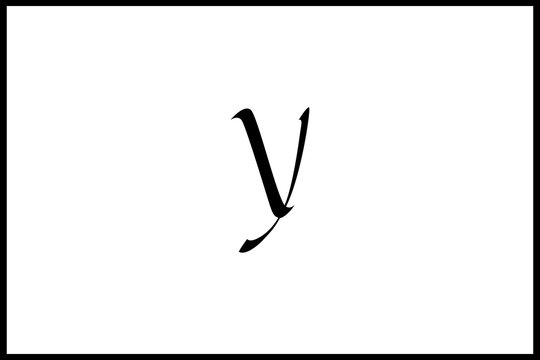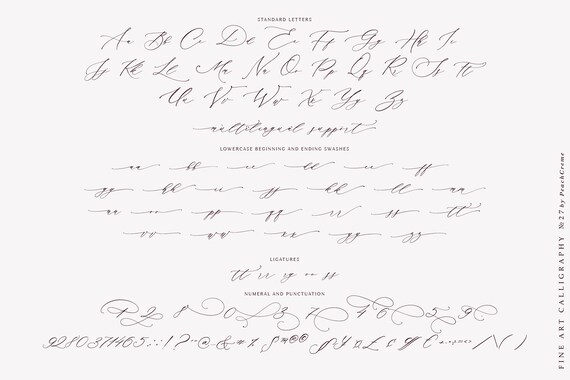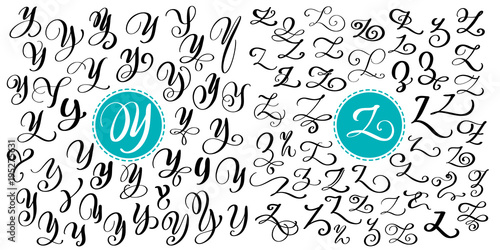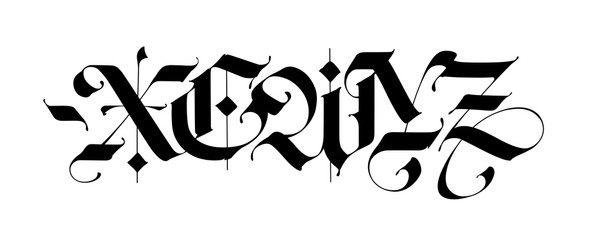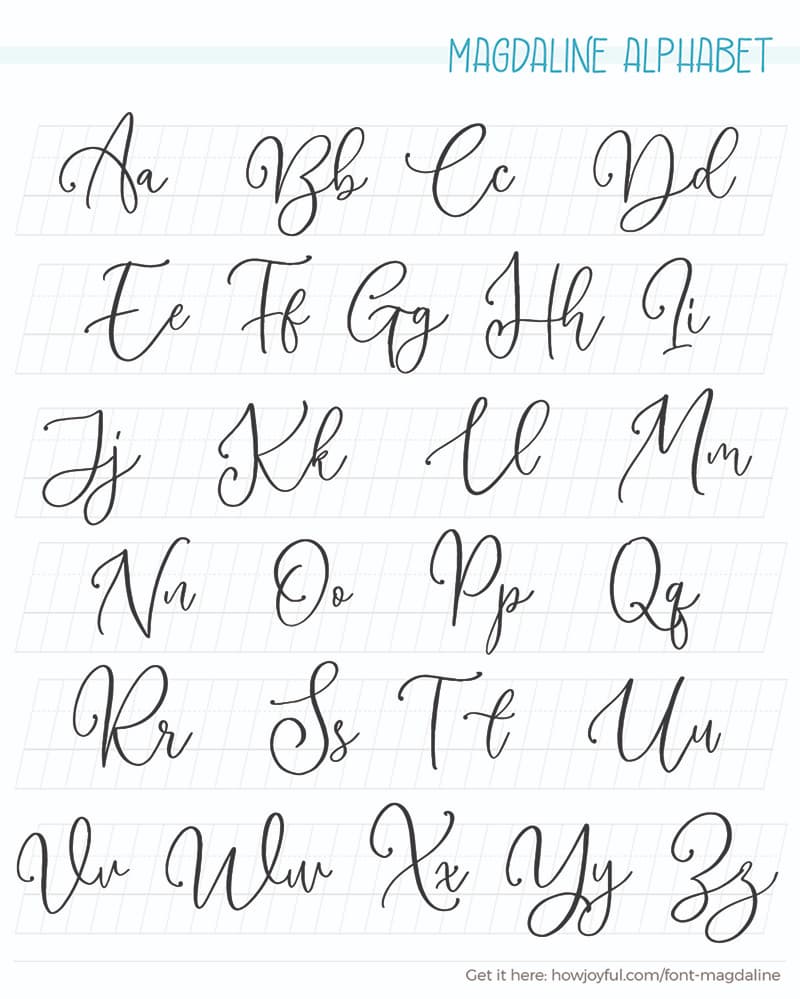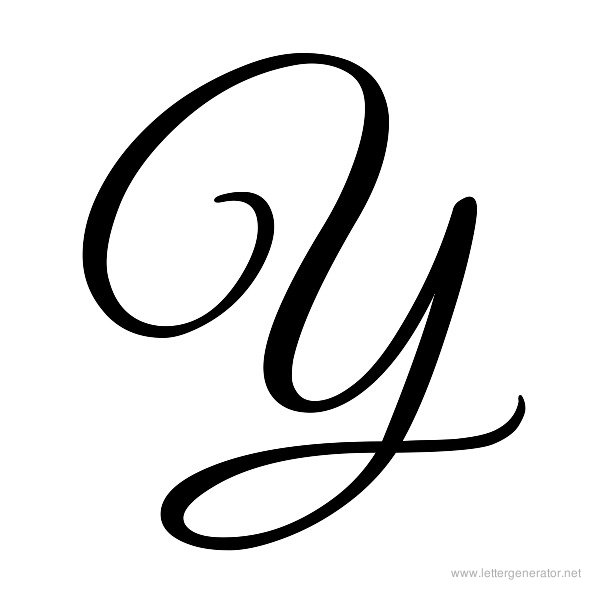
Oo ff ll ee etc Other common ligatures are those that make some of the most used letter combinations more special ex. Rubicela by Edric Studio.
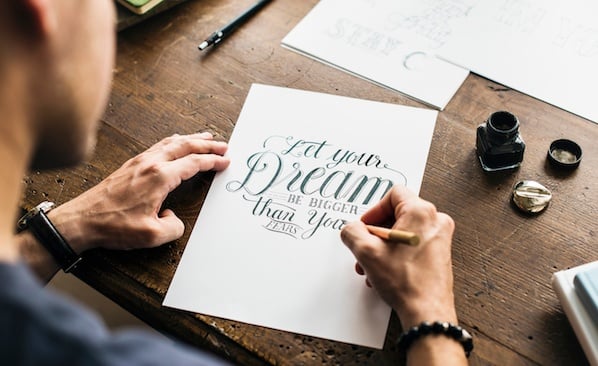
Calligraphy y font. Calligraphy is an ancient writing technique using flat edged pens to create artistic lettering using thick and thin lines depending on the direction of the stroke. Canales by Calligraphy Fonts 17809 downloads 2218 yesterday. This Name app provides 50 calligraphy font styles to write your name on different background and gradients or create your signature.
In fact calligraphy is displayed by some fonts. Calligraphy Font Name Art is the best app to add text artworks and stickers on photos. For each type of font you can generate a separate generated calligraphy just click the edit link then enter your text choose the color and size and then generate the calligraphy.
Fl br th st etc. According to the designer the font is an ode to the late 19 th century American calligrapher Louis Madarasz known as the most skillful penman the world has ever known. We have 2033 free Modern Calligraphy Fonts to offer for direct downloading 1001 Fonts is your favorite site for free fonts since 2001.
Font generator will convert your text letters using calligraphy fontClick a copy buttonPaste it as plain text. WHAT IS THE PURPOSE OF LIGATURES. Hey Magnolia by Mytha Studio.
Hello Honey à. It contains uppercase lowercase and number. Modern Calligraphy Fonts Modern calligraphy typefaces differ from traditional calligraphy in that they do not adhere to specific lettering rules.
We have collected the most popular 20 kinds of calligraphy fonts. Anayu font looks astonishing on love letters greeting cards logos business cards wedding invitations thank you cards quotes apparel branding magazine advertising product. 5 downloads Free for personal use.
On calligraphy fonts some of the most popular ligatures are the ones with double letters ex. The results are shown in the image. The writing is readable but is usually extravagant and embellished with flourishes.
4 downloads Free for personal use. This style can end up looking very similar to hand-lettered fonts but the difference is that calligraphy is written and not drawn. We offer fast servers so you can Download Calligraphy Fonts and get to work quickly.
Calligraphy fonts are widely used in wedding event invitations original logo design religious art films TV etc. Download Donate to author. Price - low to high.
Download Calligraphy Fonts for free in the highest quality available. Burgues Script created by Alejandro Paul is a typical font family of calligraphy style. Andyou Calligraphy Font is a lovely and delicate script font that exudes elegance and class.
This font was particularly crafted for those who need a beautiful and refreshing look to their designs. How to text with calligraphy font letters Use the input field above to type in your message. 1001 Free Fonts offers the best selection of Calligraphy Fonts for Windows and Macintosh.
It usually involves a nibbed pen or brush. All fonts are categorized and can be saved for quick reference and comparison. The main sub-styles are traditional calligraphy and modern calligraphy.
Rellative by Calligraphy Fonts. Calligraphy is an artistic writing style where the pressure is varied to create thick and thin lines all in a single stroke. After that you can decorate it with different decorative item as feathers love items art item love stickers color brush color filter heart shapes.
Its going to work pretty much anywhere online - works almost everywhere - its just textText with special computer letters and symbols kind of like emoji. The height of calligraphy was reached in the middle age where monks developed the narrow writing style called gothic allowing more words to fit on a single line as paper was expensive at the time. We hope you enjoy our site and please dont forget to vote for your favorite Calligraphy Fonts.
This version is a Personal to Use Only. Free Anayu Calligraphy Font is an elegant whimsical and uniquely shaped lettered handwritten font that look simple but cute font that suits to type on any design. You can customize your experience with live font previews.